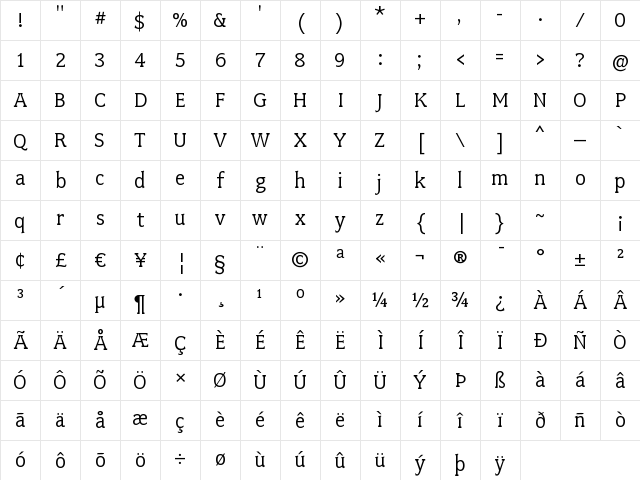
FairplexNarrowBook Regular
Designer: Zuzana Licko
Design Context for FairplexNarrowBook
FairplexNarrowBook is a composed and adaptable typeface that performs quietly and consistently across a wide range of design contexts. Its narrow stance lets it pack a punch even in space-constrained designs.
Pro Tip: Use FairplexNarrowBook in both headline and body roles to test its range before committing to a single application.